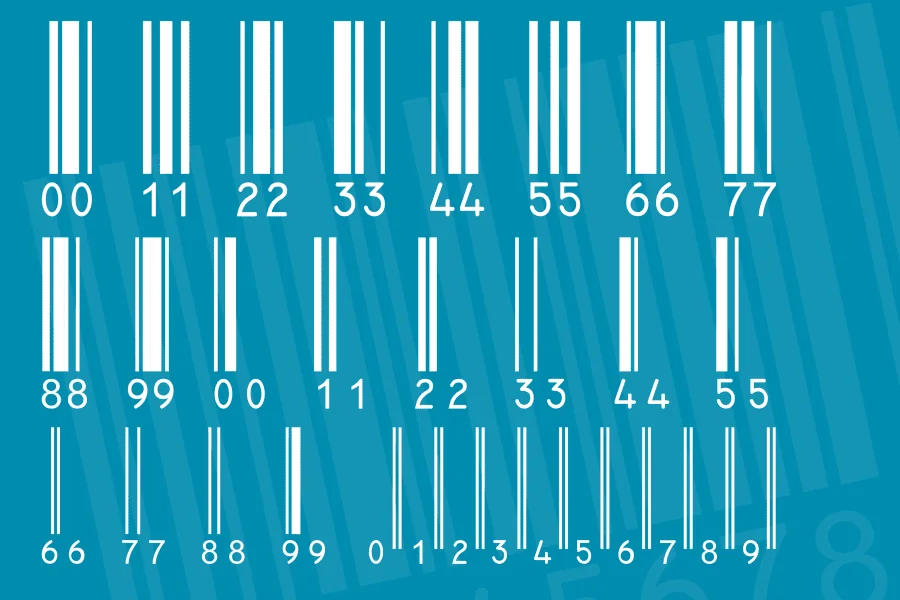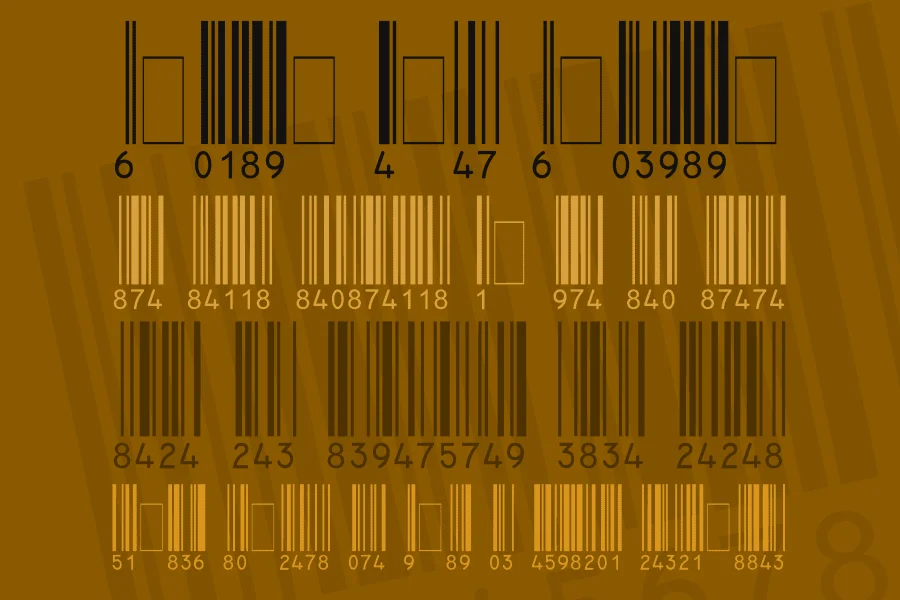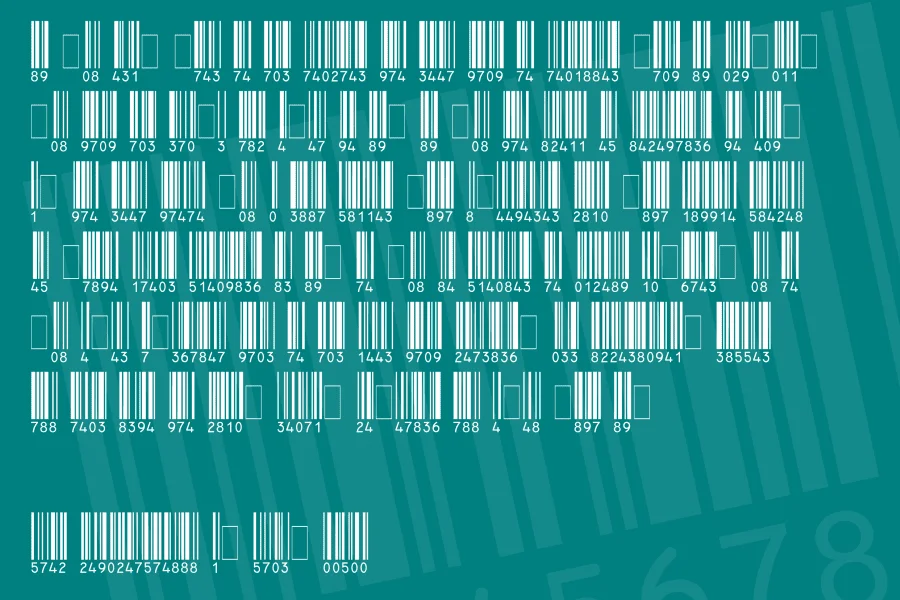
This code used on all current consumer products allow a 12 digits code, the thirteenth digit is a control key that we'll must generate. Before going into technique, two smalls evasions.
All the found EAN13 bar codes on the net (Incomplete demonstration font) aren't free, several times expensive, and with uncertain quality; the width module isn't always permanent in the font definition. I've decided consequently to draw entirely an EAN13 font and to propose it for download. I test it on a laser printer with size 14, what gives a very small barcode with a width of about 13 mm, result : reading at 100% ! On a good inkjet printer, this same size of 14 work very well.